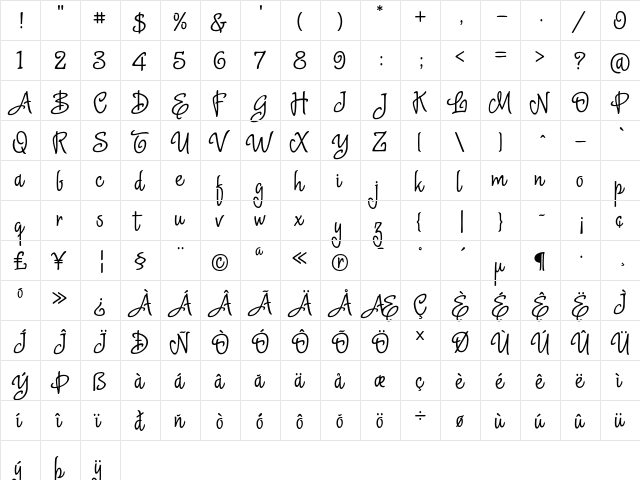
Delight Script Regular
Design Context for Delight Script Typeface
Delight Script brings a calligraphic fluidity to the page — its connecting strokes and expressive curves give it an unmistakably human quality. Its slender proportions lend an understated elegance to any composition.
Font Pairing: Combine Delight Script with a simple geometric sans for maximum contrast — the tension between flowing curves and clean structure is a classic typographic pairing.
Pro Tip: Use Delight Script for short runs of text — names, titles, or taglines. Extended body copy in script faces tires the eye quickly.